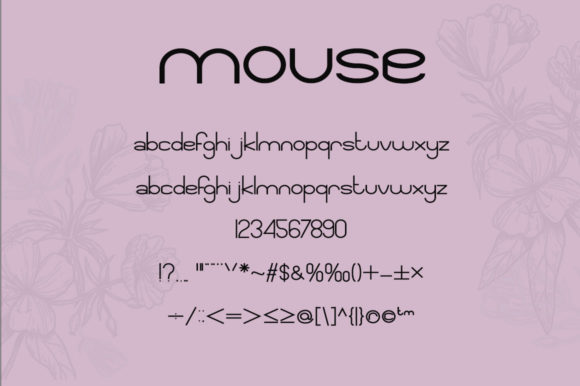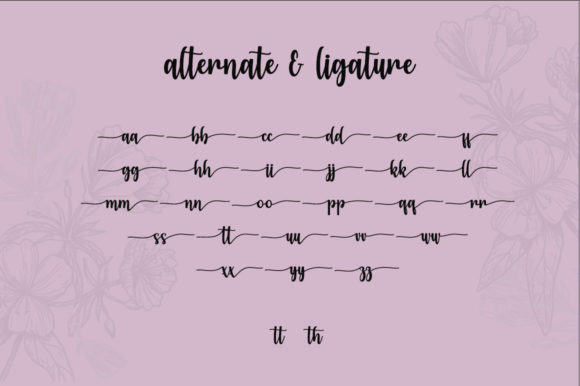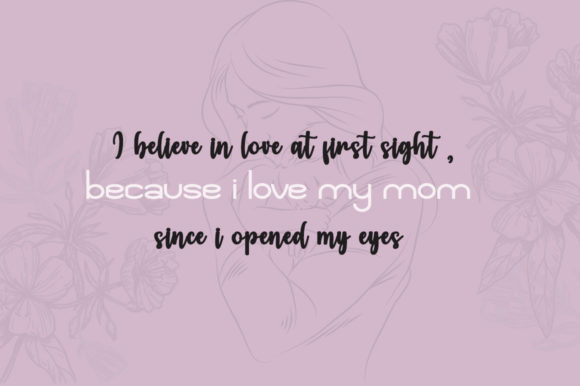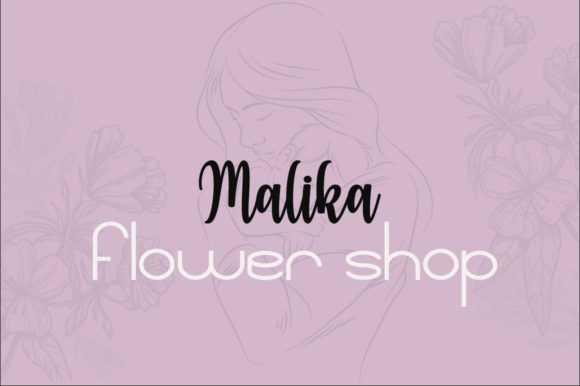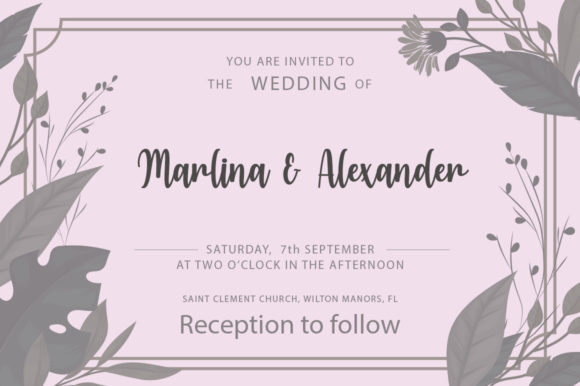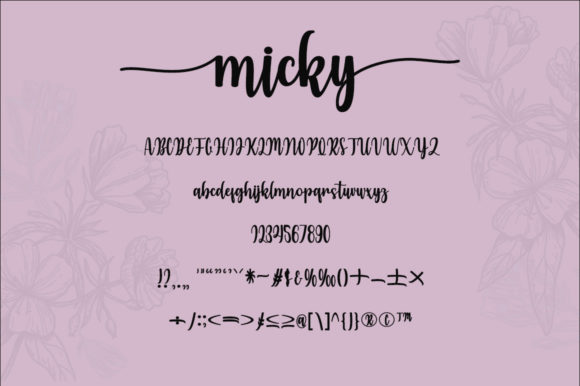
Introduction to Malika Flower Shop Font
Have you ever been scrolling through your social media feed and stumbled upon a beautiful design that caught your eye? For many of us, that’s the moment when inspiration strikes and our creative juices start flowing. It’s in these moments that we often find ourselves searching for the perfect design resource to bring our project ideas to life. For designers, finding the right font can be a game-changer, elevating our work from good to great.
Enter the Malika Flower Shop Font, a stunning duo font that combines the elegance of a sans serif with the whimsy of a script. This beautiful font is perfect for designers looking to add a touch of warmth and romance to their creative projects. With its high-quality design and transparent background, the Malika Flower Shop Font is a must-have for any design enthusiast.
Key Features of Malika Flower Shop Font
- Unique, hand-drawn design for a creative project with a touch of elegance
- High-quality, detailed font with a transparent background for easy customization
- Features a bold, cursive script with a floral theme, perfect for a flower shop or garden-inspired design
Honest Review: Malika Flower Shop Font
- ✨ The font’s floral design is beautifully detailed, making it perfect for any project that requires a touch of whimsy.
- ✨ The font comes with a transparent background, which gives designers the flexibility to use it on any background color or image.
- ✨ The font is highly versatile and can be used for a wide range of creative projects, from wedding invitations to branding materials.
However, there are a few limitations to consider. ⚠️ The font is only available in a limited number of styles, which may not be suitable for designers who require a wide range of font options. ⚠️ Additionally, the font may not be the best choice for projects that require a bold or dramatic font style.
Overall, I’m impressed with the Malika Flower Shop Font. It’s a high-quality design resource that can add a touch of elegance and sophistication to any creative project. While it may have some limitations, I think it’s a great choice for designers who are looking for a beautiful, free font to use in their work.
The Malika Flower Shop Font is a high-quality design resource ideal for creative projects. With its unique and elegant style, it’s perfect for floral-themed designs, wedding invitations, and more.
The Malika Flower Shop Font is perfect for:
- Floral-themed designs
- Product packaging and labeling